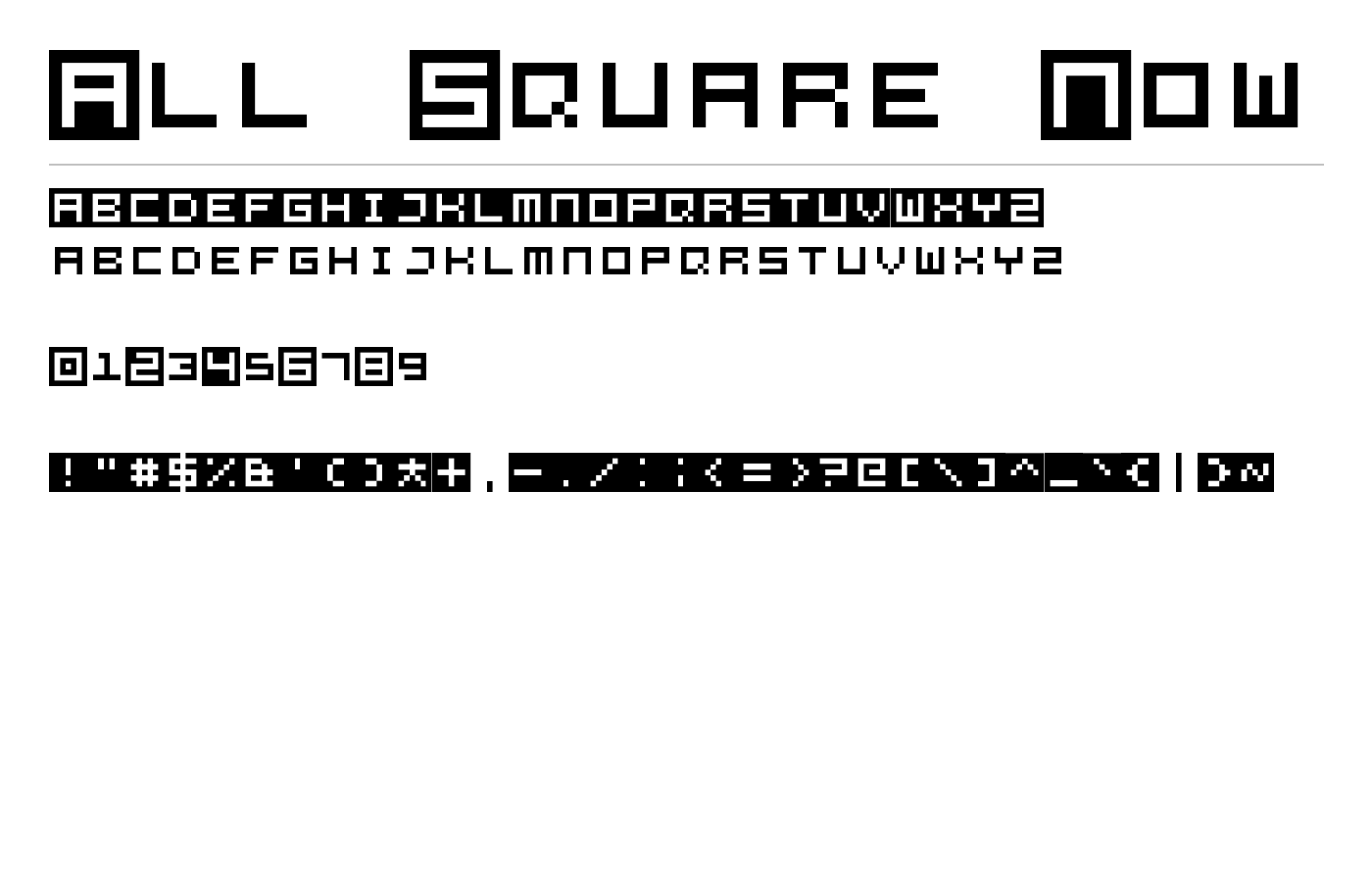
All Square Now is a bold, geometric sans-serif font characterized by its strictly square shapes and uniform stroke weight, giving it a futuristic, digital vibe. With a pixelated, modern appearance and tight spacing, it works best for tech-inspired branding, video game graphics, and digital displays where a strong, structured look is desired. This font’s unique, blocky design brings a modern, playful edge ideal for logos and headlines that need a distinctive, techy personality.
All Square Now Font
About All Square Now Font